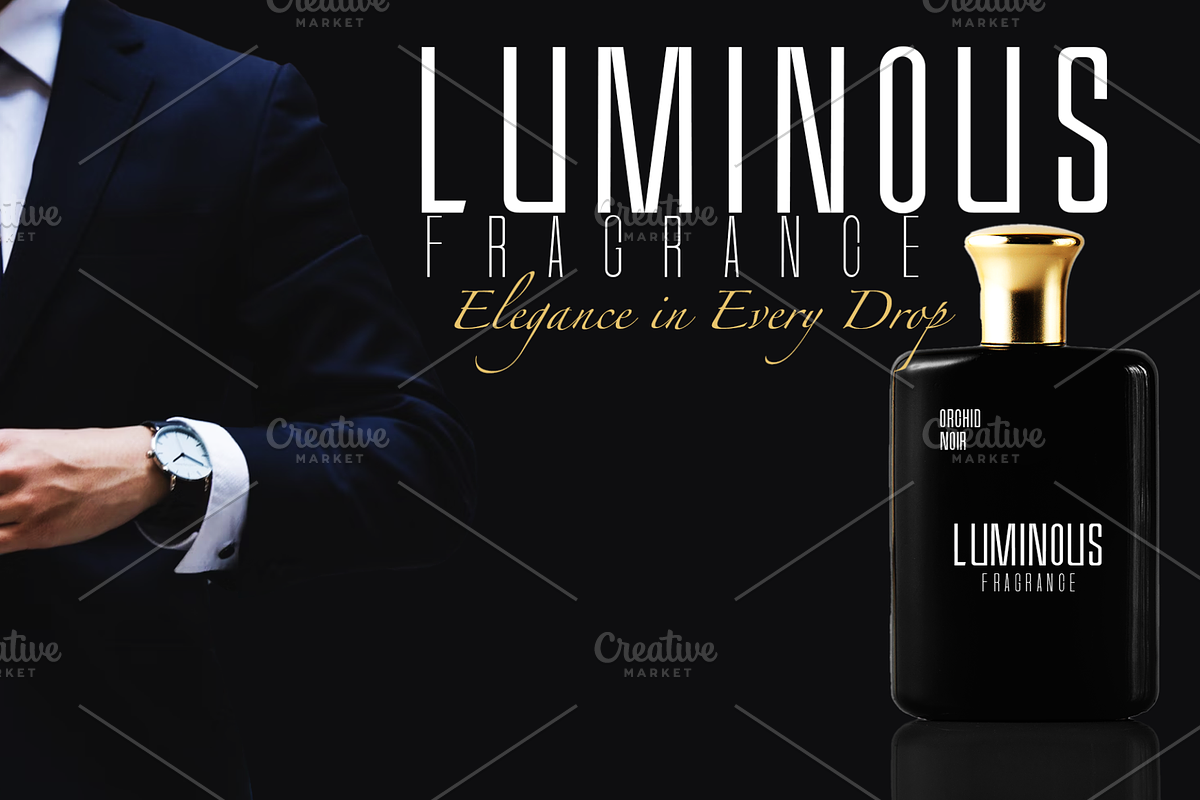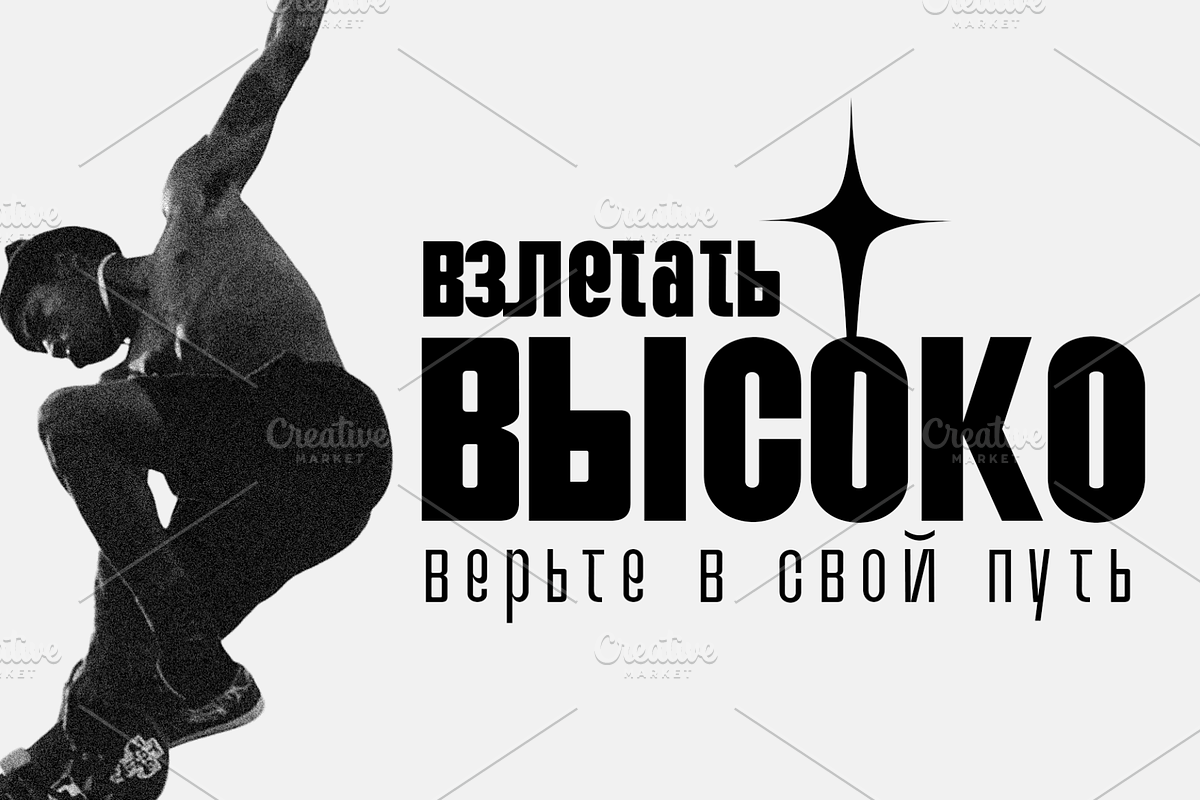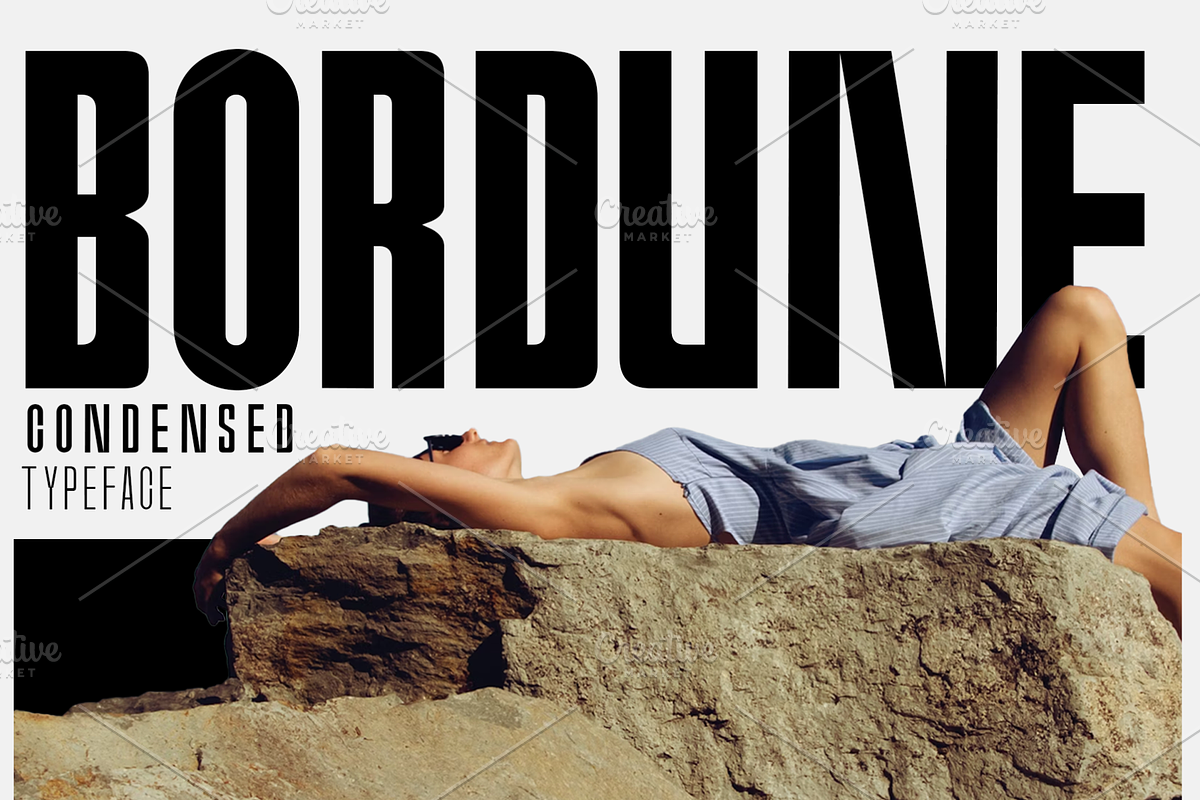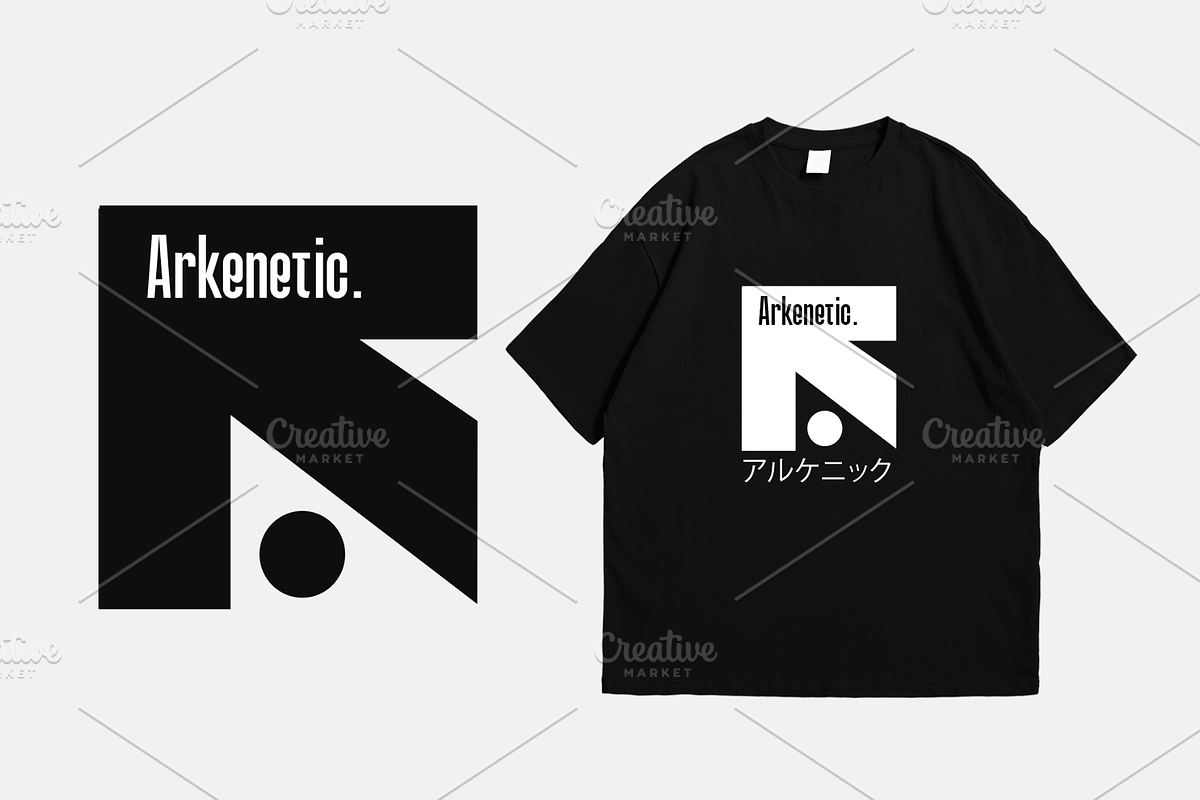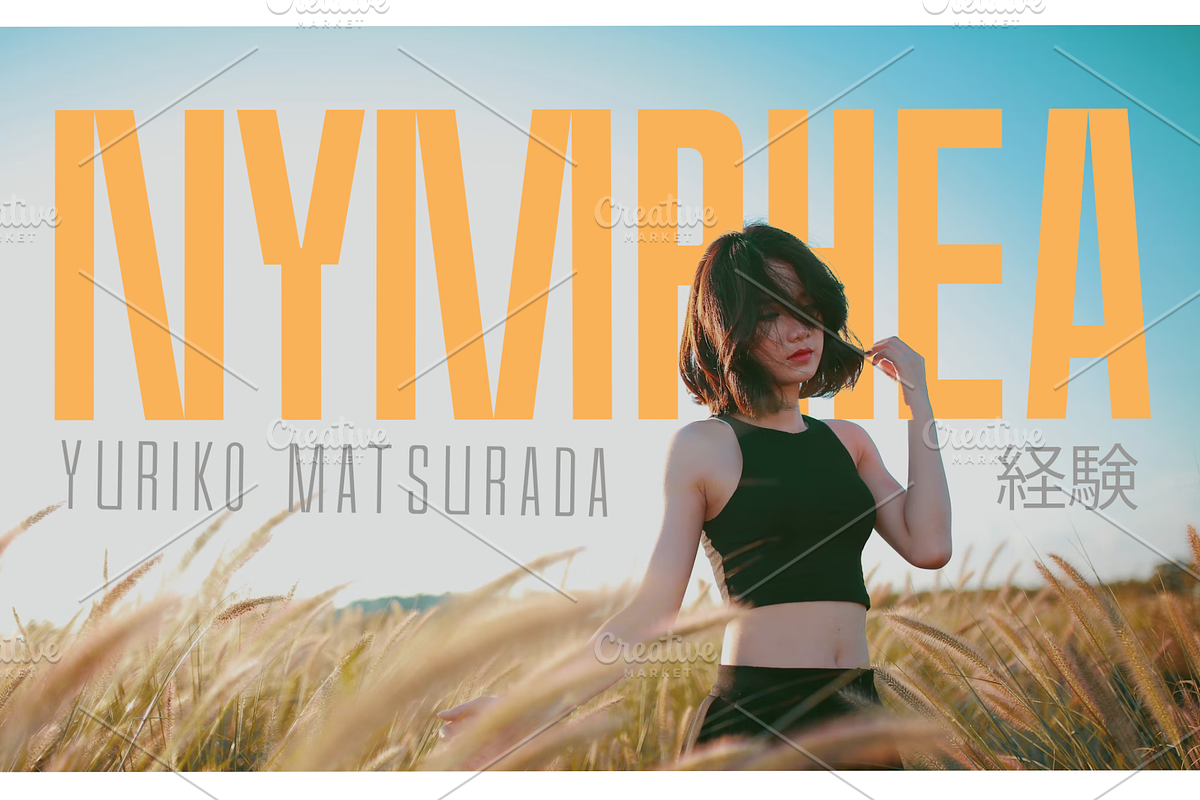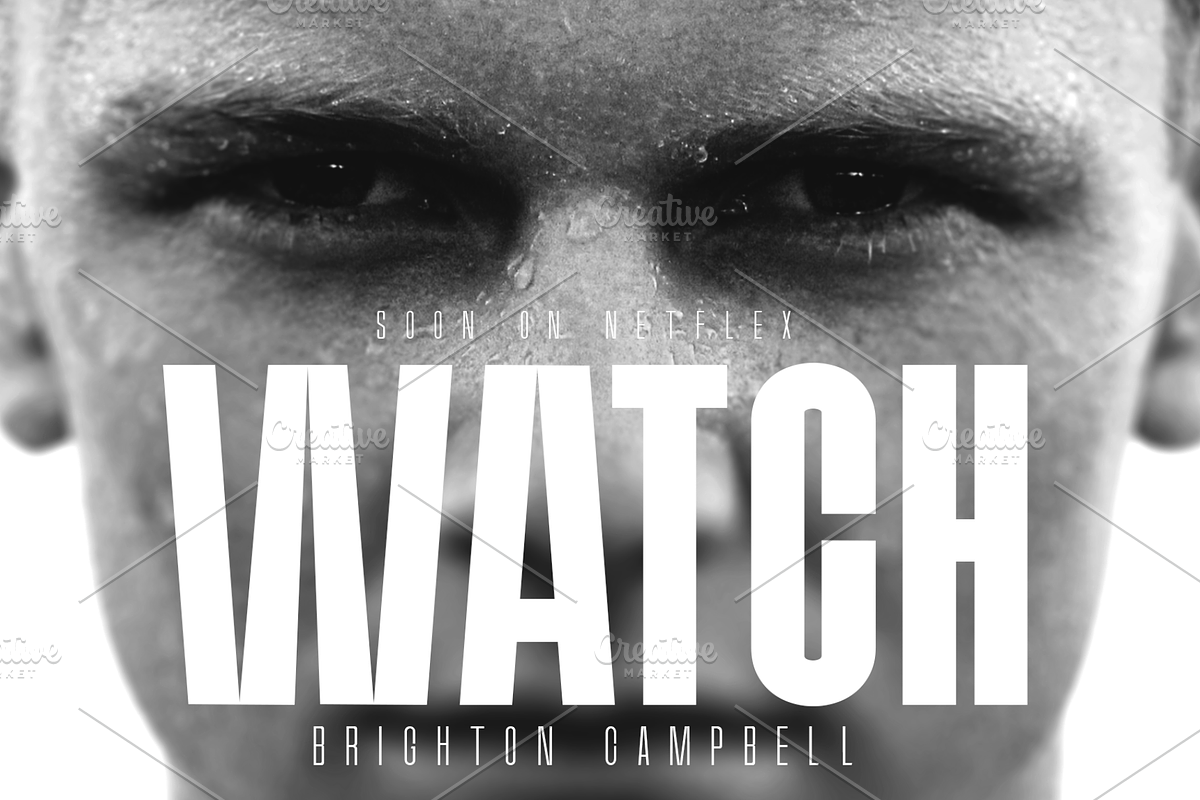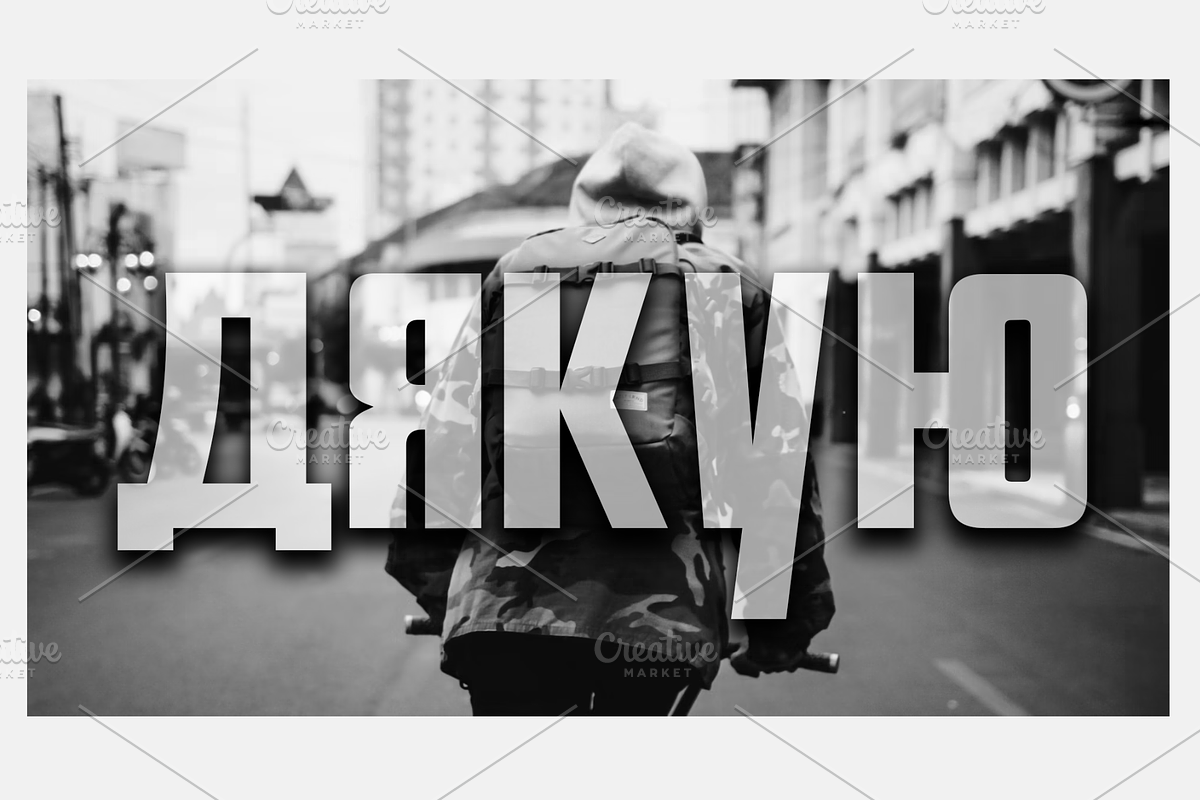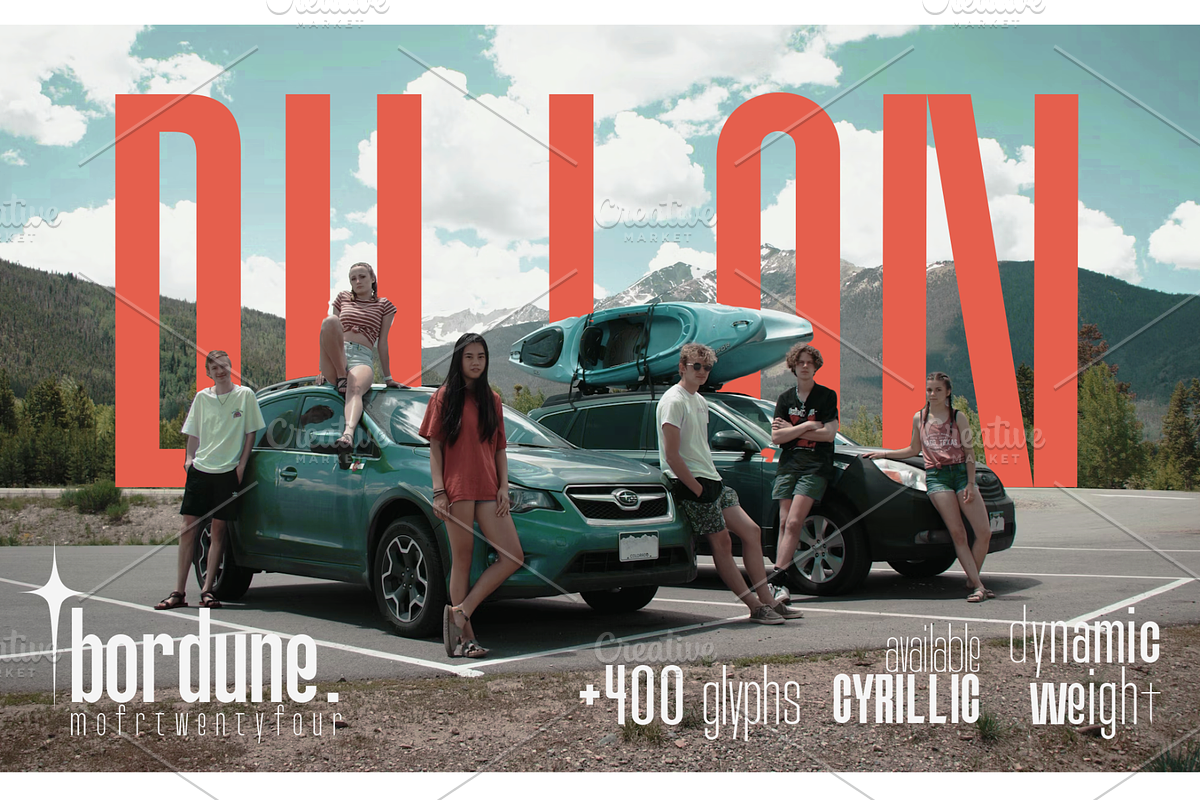
Bordune - Condensed Tyepface
Discover Bordune, a sleek and condensed typeface that encapsulates bold brilliance and refined elegance seamlessly. This contemporary sans-serif font is characterized by its striking weight variations and wide language support, enhancing its versatility manifold. Bordune unfolds an impressive collection of over 400 exquisitely crafted glyphs, making it the go-to choice for a broad spectrum of creative endeavors. Be it enticing branding, captivating magazines, sophisticated typography, eye-catching posters, engaging thumbnails, or inventive T-shirt designs, Bordune lends an unmatchable edge to your creations. Uplift your design aesthetics with the sophisticated allure and dynamic beauty of Bordune.